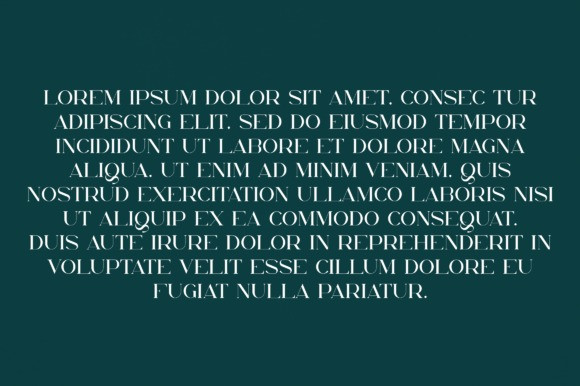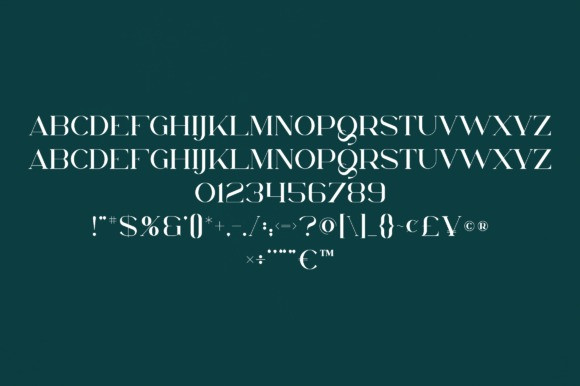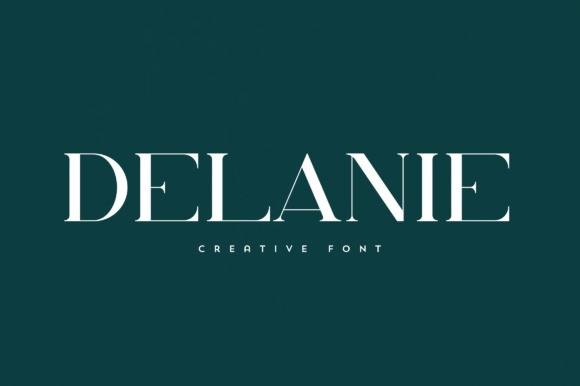
Delanie Font
Delanie Font is an elegant and versatile font that will make your typography truly unique! It will enchant every logo, branding, headline, or plain text!